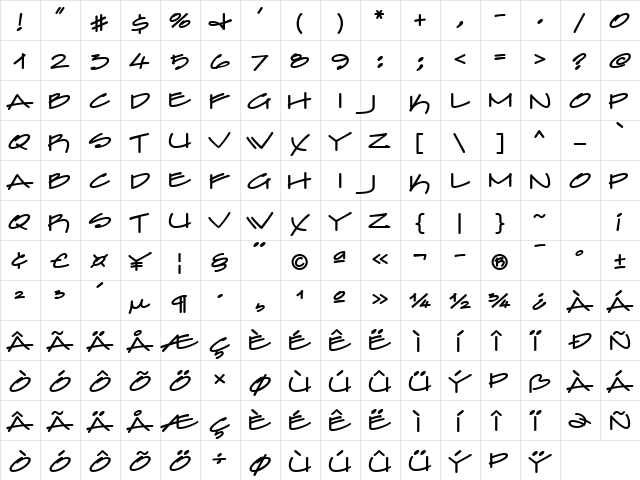
Farfel ICG Felt Tip Regular
Design Context for Farfel ICG Felt Tip Typeface
Farfel ICG Felt Tip is a composed and adaptable typeface that performs quietly and consistently across a wide range of design contexts.